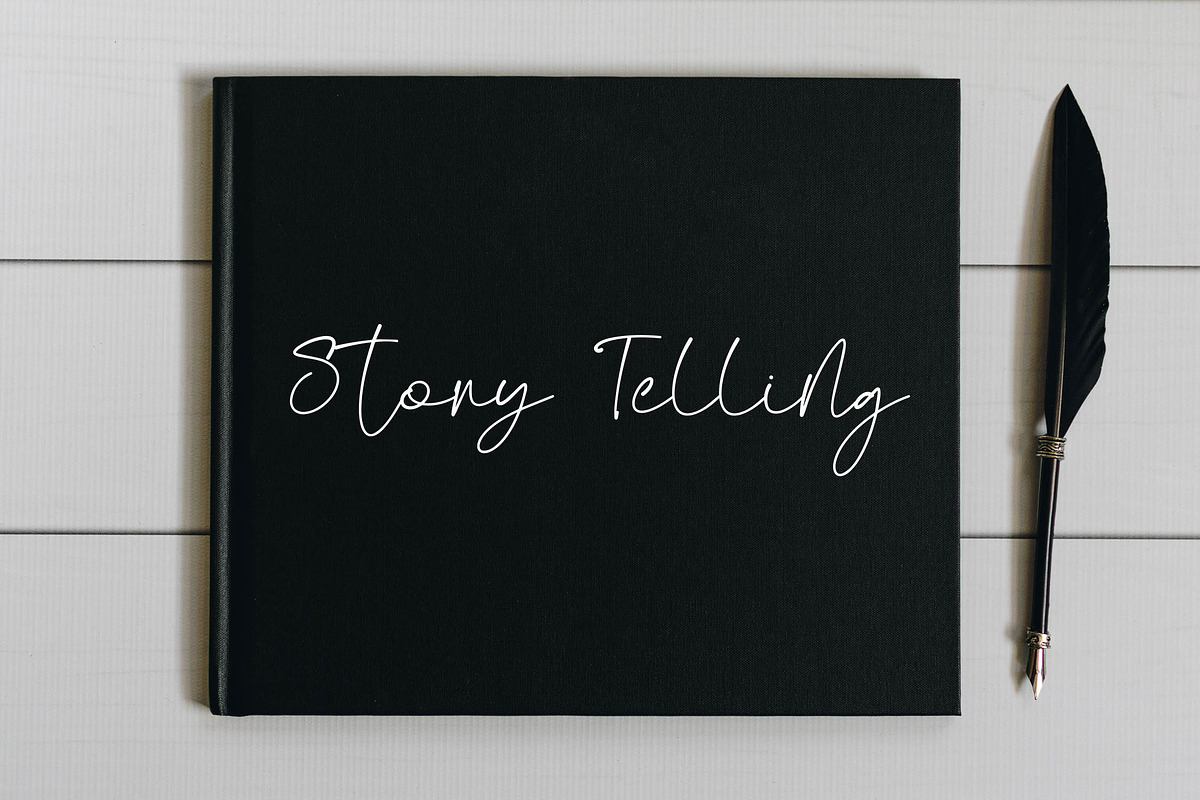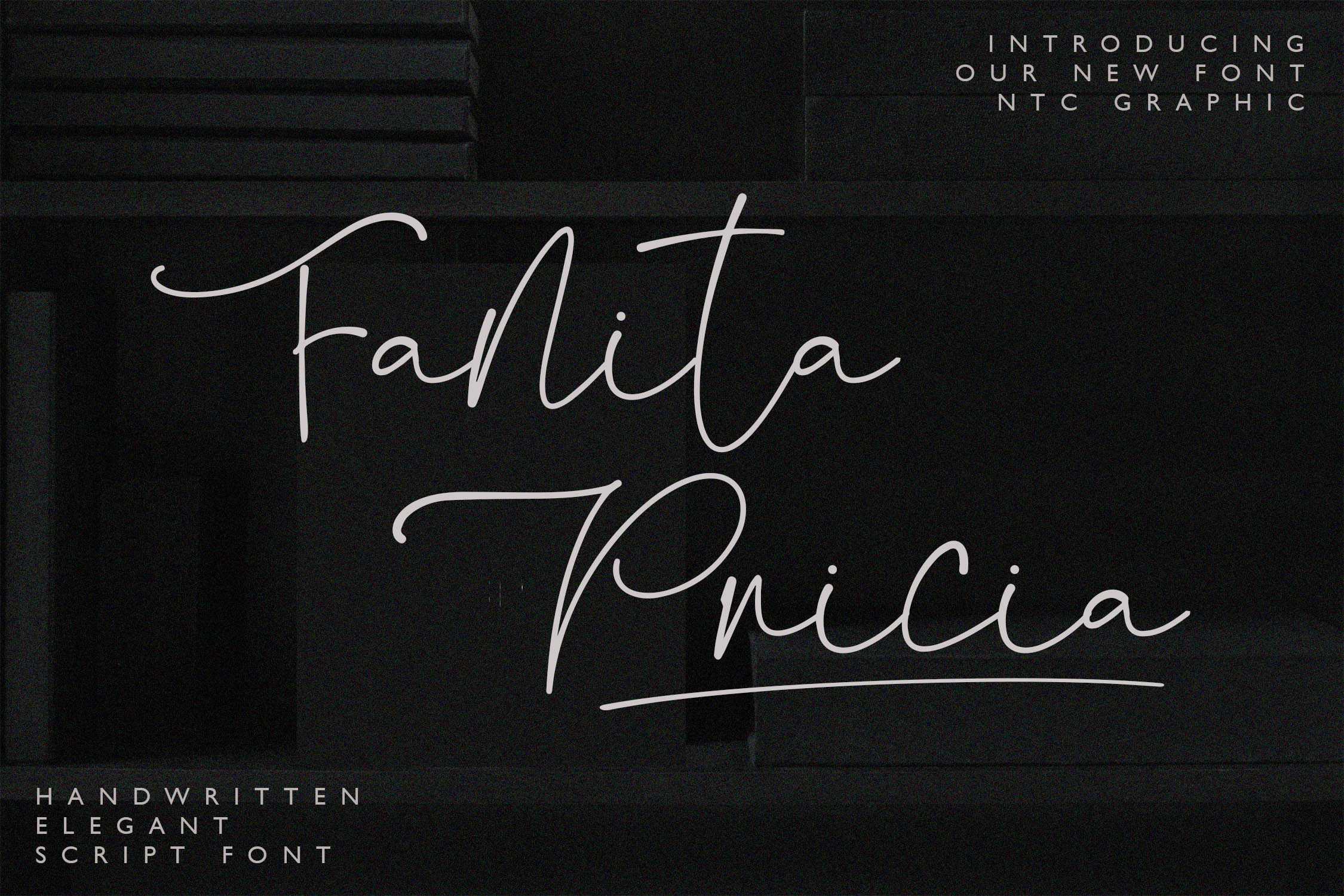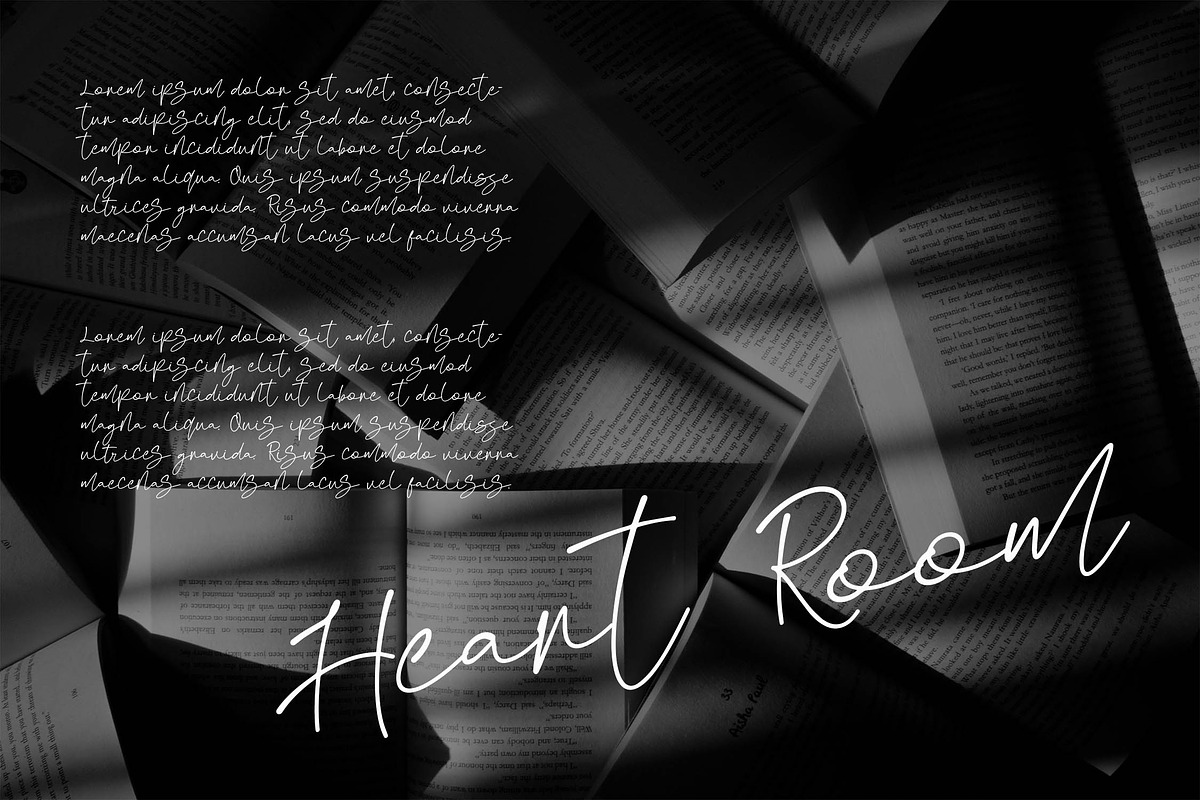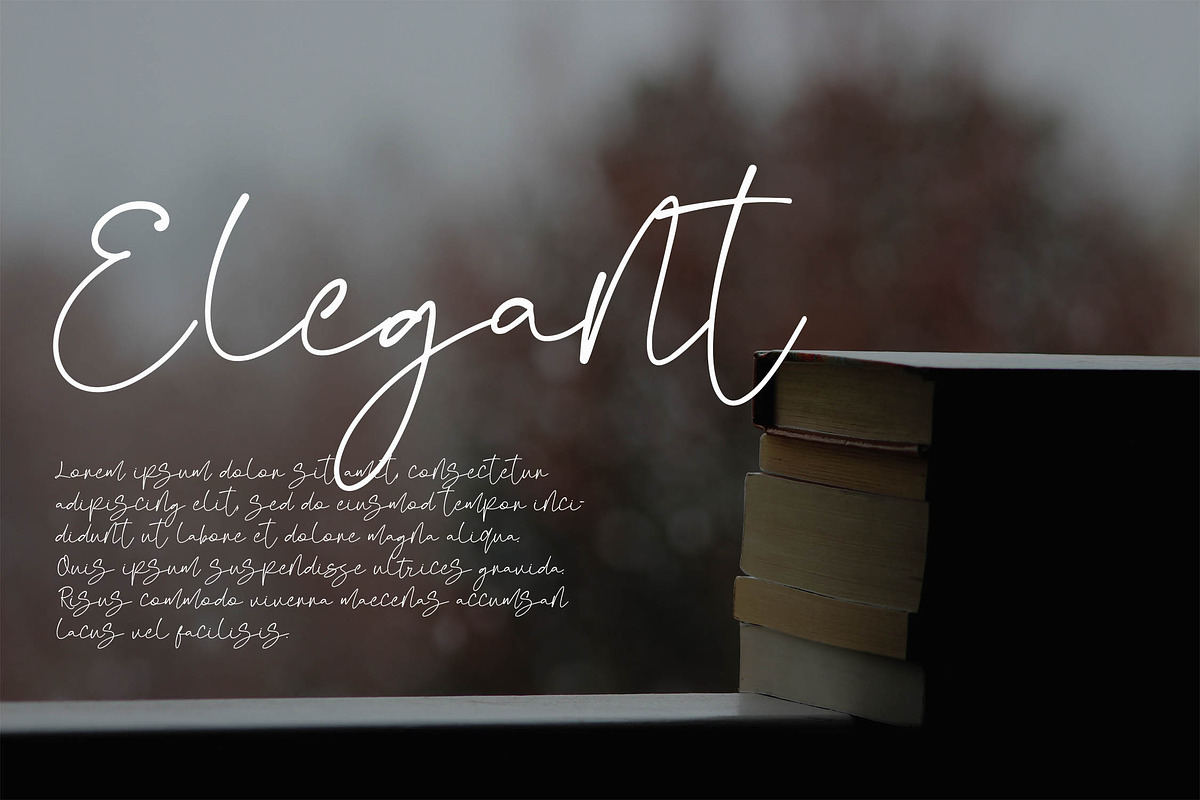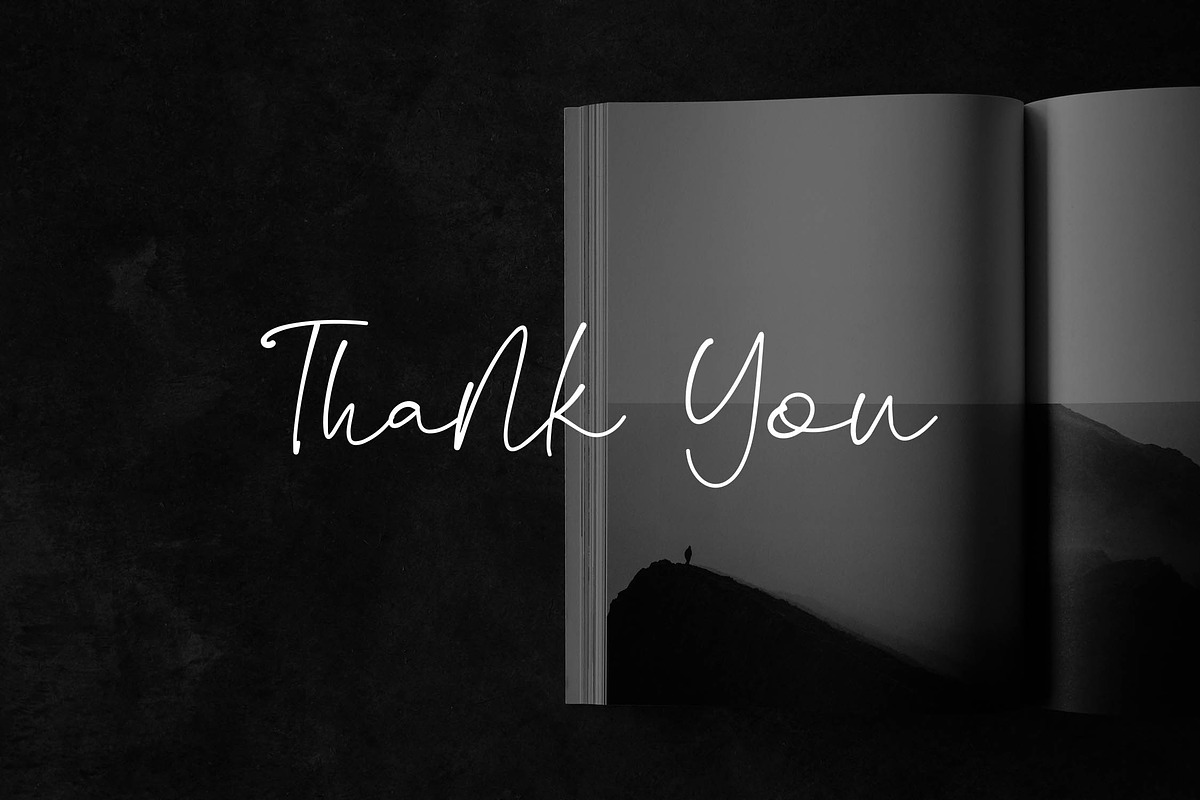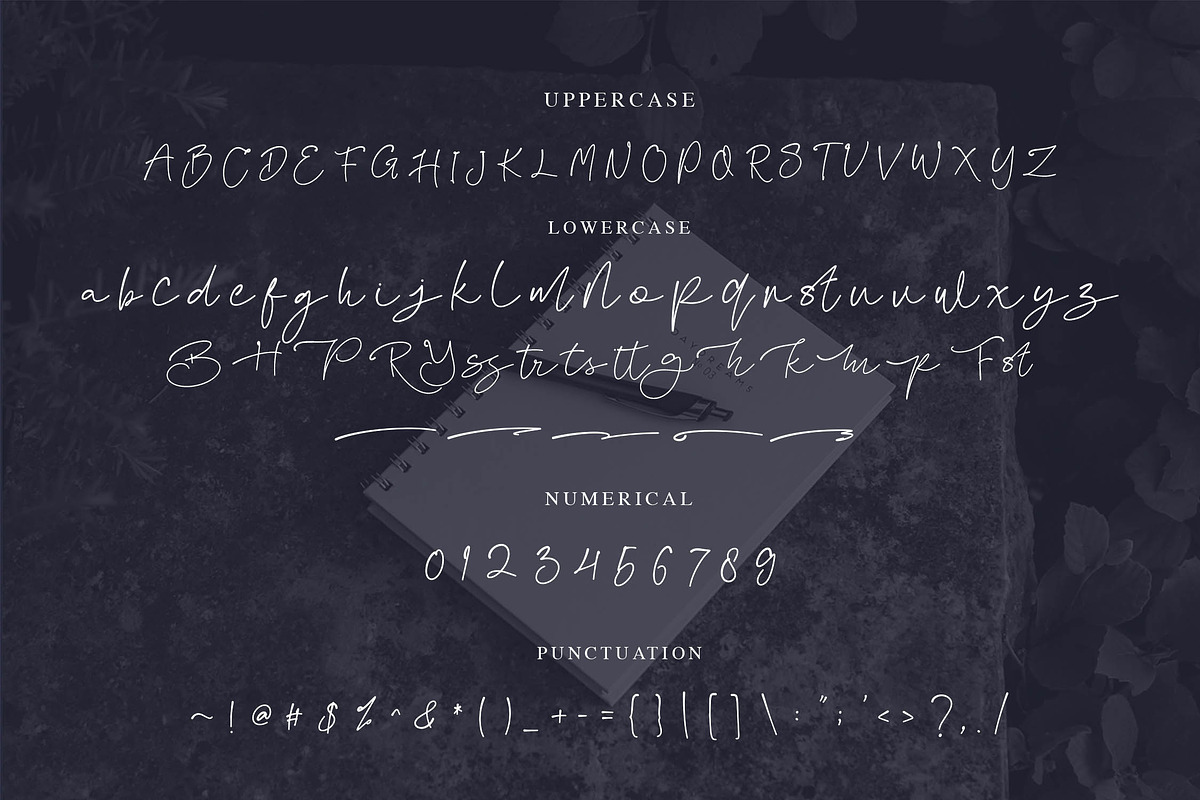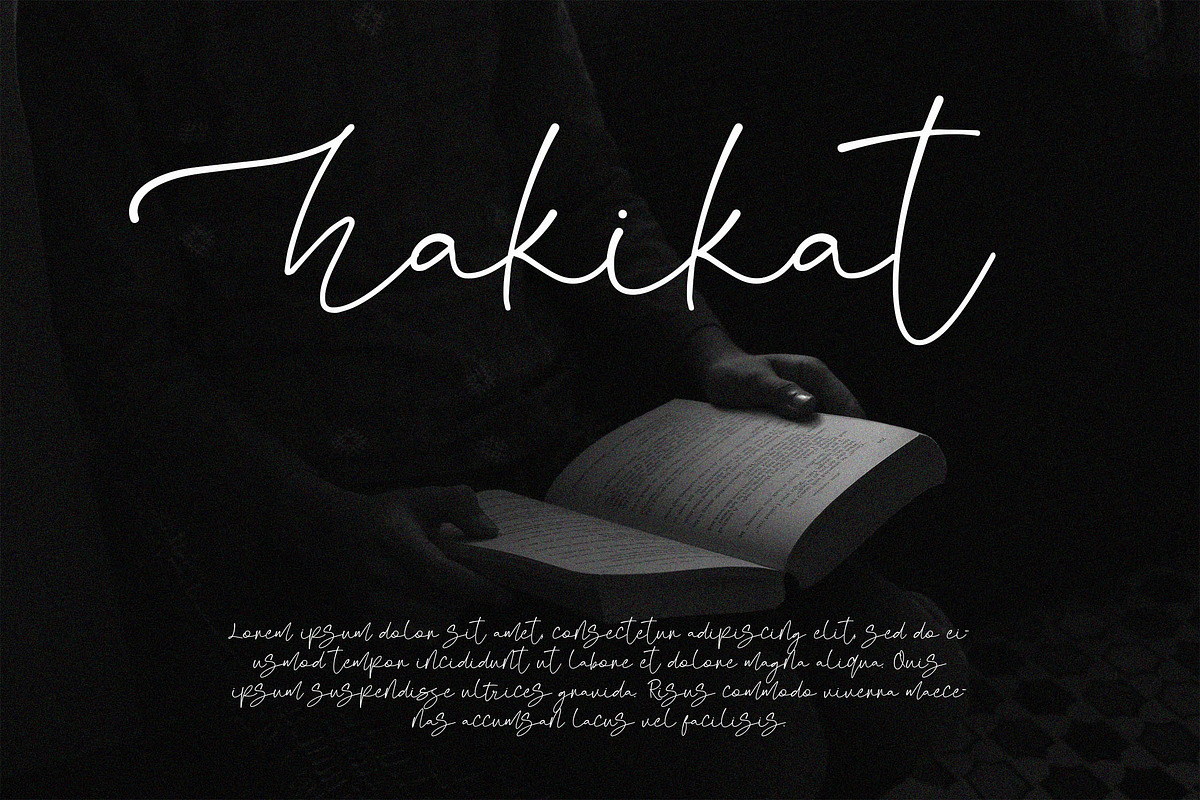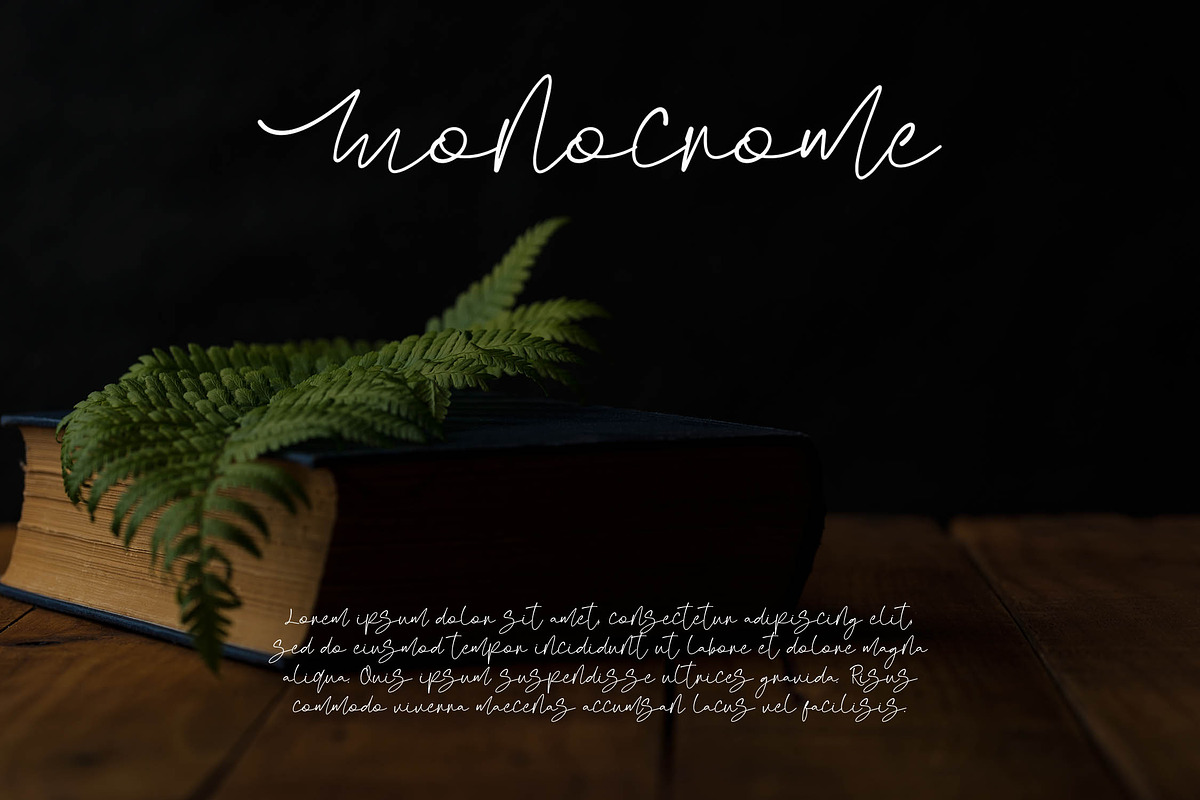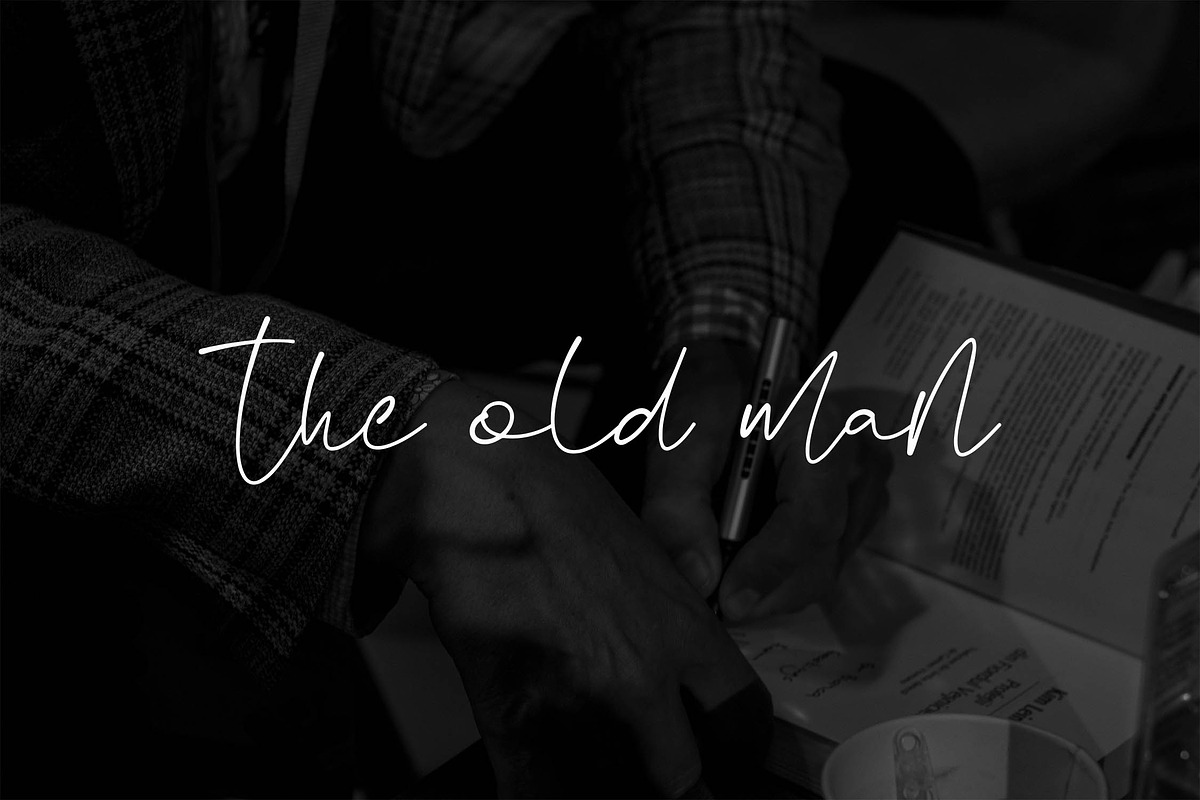
Fanita Pricia - Elegant Script Font
Fanita Pricia is a beautiful script font with an elegant handwritten style. Is a font style that is made with scratches and curvature shapes font characters are very beautiful. Can be applied to support the graphic appearance of the product to be more attractive and unique. This font is suitable for making previews and covers, logo designs, shirt designs and other graphic needs.
- Stylistic Alternate